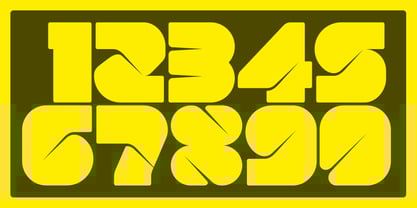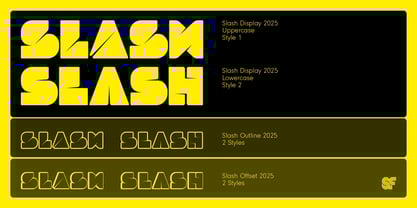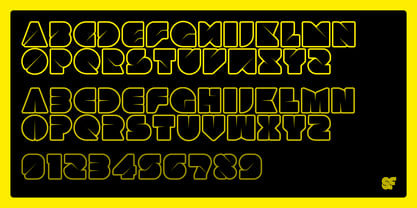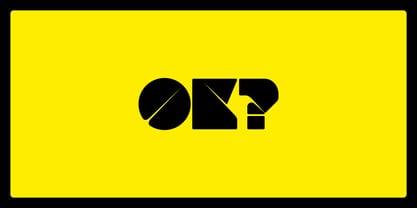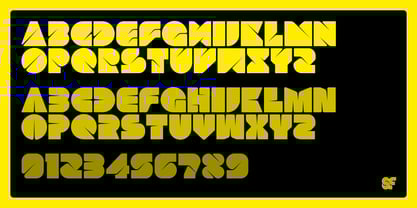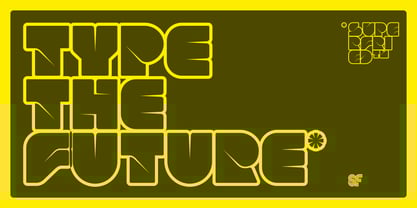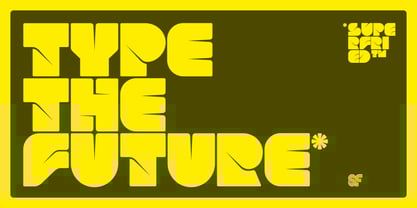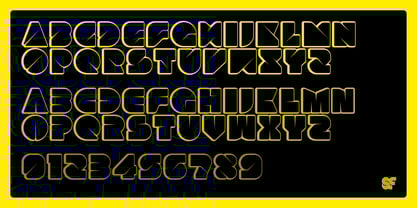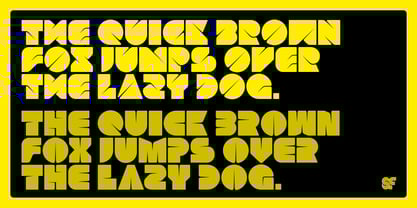
Slash
por Superfried
La familia tipográfica Slash fue diseñada por Mark Richardson y publicada por Superfried. Slash contiene 3 estilos y opciones de paquete familiar. Más información sobre esta familia
NEW – Remastered for 2025! Originally crafted in 2011 by Superfried, this experimental all-caps display typeface is designed to make a bold statement. With its name reflecting its striking aesthetic, Slash showcases solid blocks carved via unique incisions to create intricate curved forms that define each glyph, delivering a powerful visual impact. The 2025 update includes refined character designs and optimized spacing for improved readability. Slash offers versatility with three distinct styles: Display, Outline, and Offset.  Each font features two interchangeable character styles, angled or straight incisions, allowing for creative flexibility in branding, web design, and editorial projects. Slash is a perfect headline typeface for projects that demand attention and creativity.
Diseñadores: Mark Richardson
Fundición: Superfried